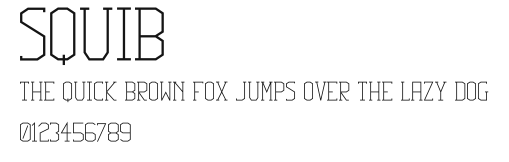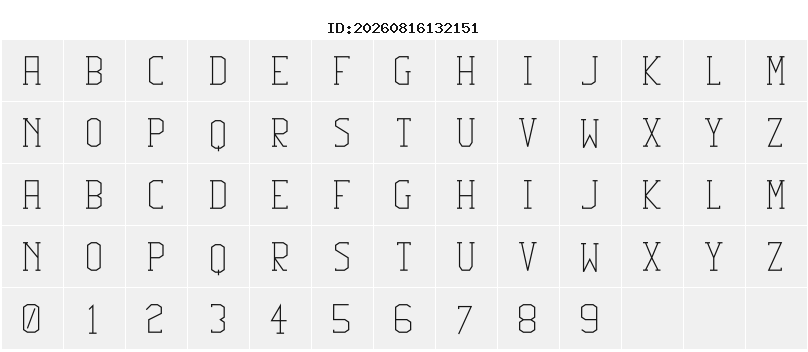
• Font Name: Squib
• Full Font Name: Squib
About Squib.ttf
Squib.ttf is a modern, elegant sans-serif font designed for ultimate readability and visual harmony. Perfect for branding, headlines, web design, and print materials.